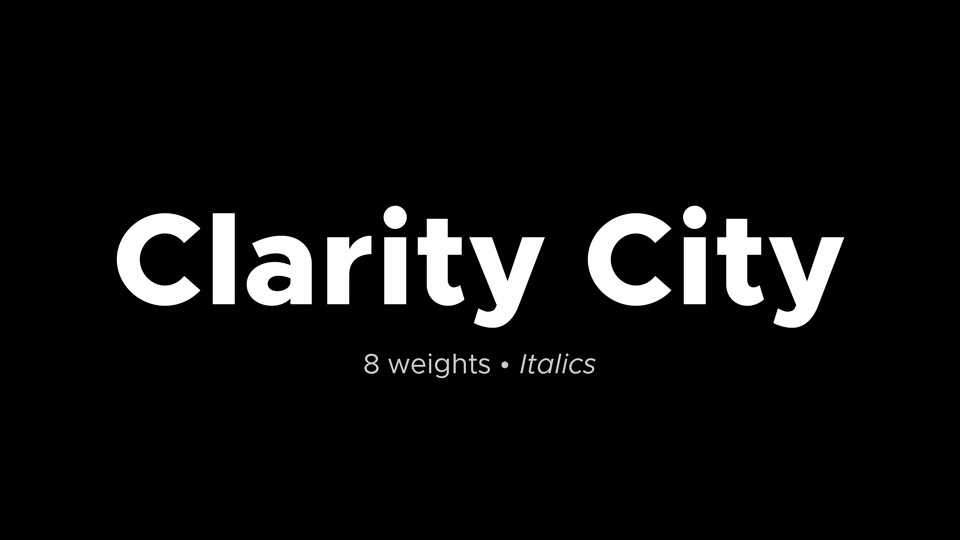
Download Clarity City typeface, a sans serif font family with 18 styles. Clarity City is a well-balanced, versatile, modern sans, highly legible as a text font and with a clean, elegant look as a display font at larger sizes.
Designer: VMware